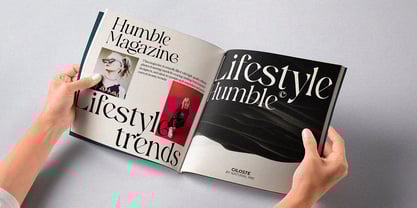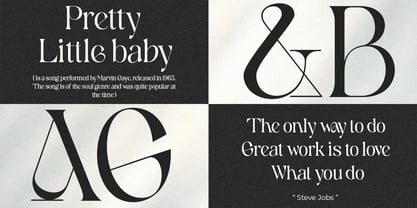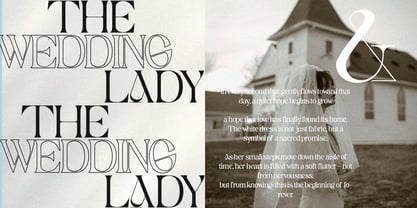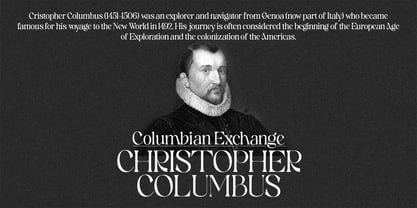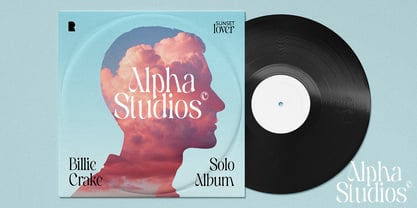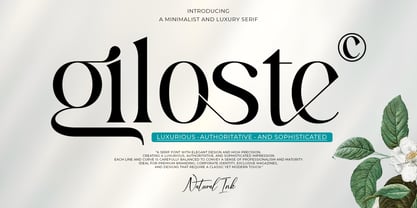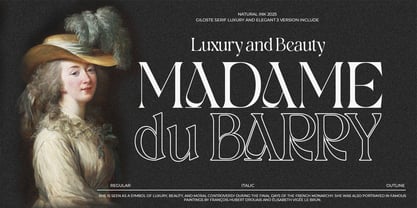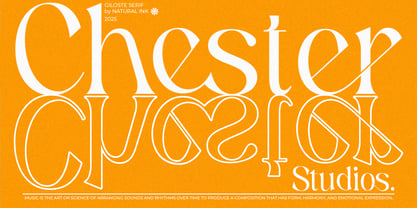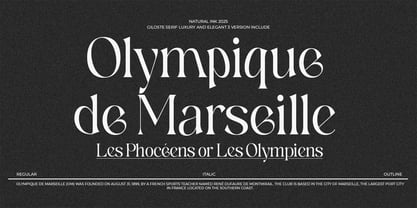
Giloste
by Natural Ink
The Giloste Font Family was designed by Arif Gunawan and published by Natural Ink. Giloste contains 3 styles and family package options. More about this family
Giloste A simple, clean, and visually elegant serif look with subtle curves and beautiful ligatures. This highly versatile font can be used in both large and small sizes. It's suitable for a wide range of projects, including titles, logos, labels, branding projects, magazines, homeware designs, product packaging, mugs, quotes, posters, and more.
This font can also provide a more expressive and playful look thanks to the various alternates and ligatures that blend harmoniously within this font, making it even more attractive and versatile. Try out the various alternates and ligatures, and you'll find plenty of options for your projects that will make them sleek and beautiful.
Designers: Arif Gunawan
Foundry: Natural Ink